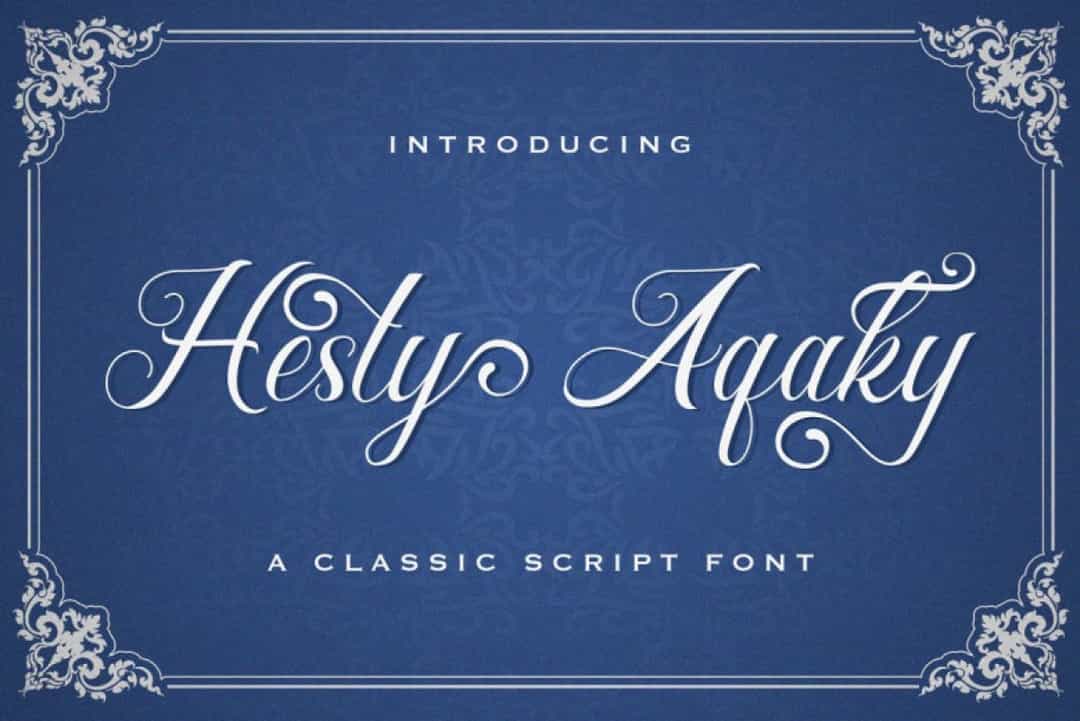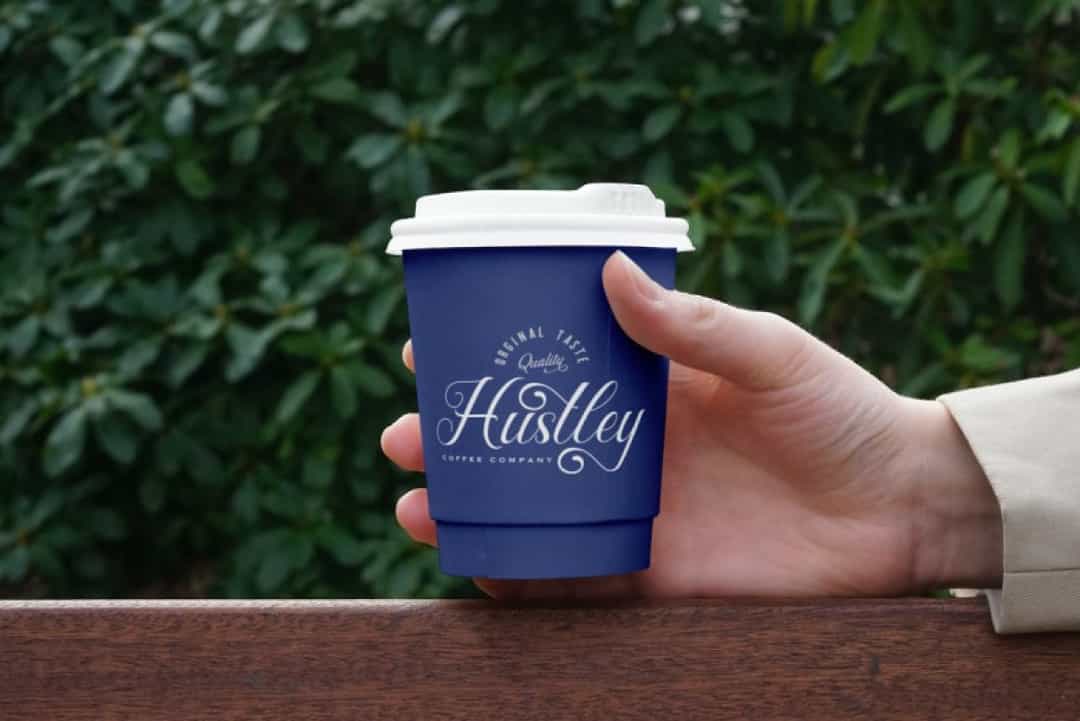
Hesty Aqaky Calligraphy Font is an elegant script typeface. This timeless script can elevate a variety of design tasks to new heights – be they headings, branding wedding designs, invitations and signatures, logos labels etc! Additionally, this PUA encoded font enables accessing all these glyphs easily as well as its swashes!